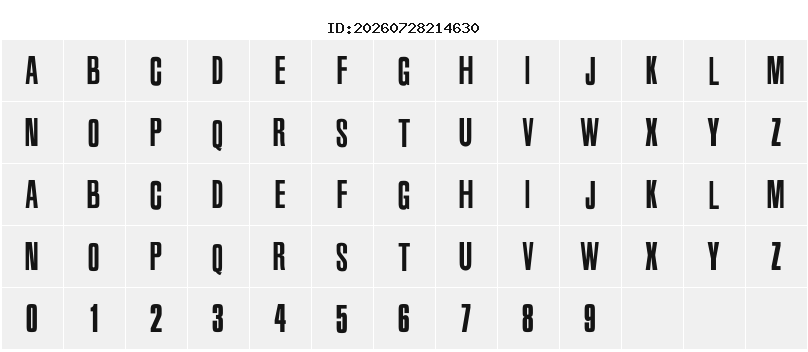
Metal Gear Solid 2.ttf is a modern, elegant sans-serif font designed for ultimate readability and visual harmony. Perfect for branding, headlines, web design, and print materials.